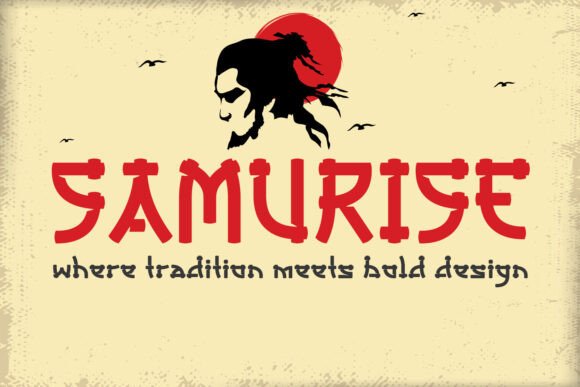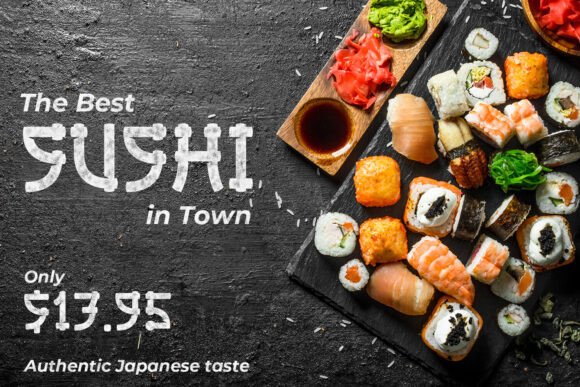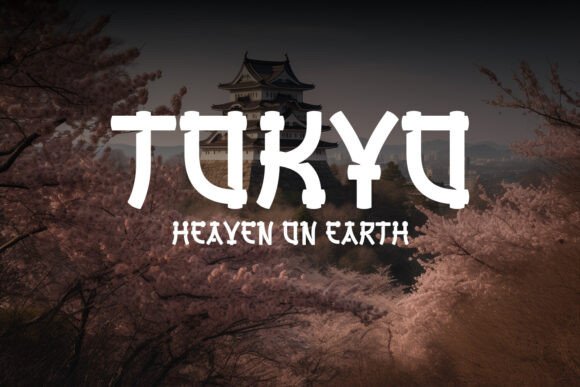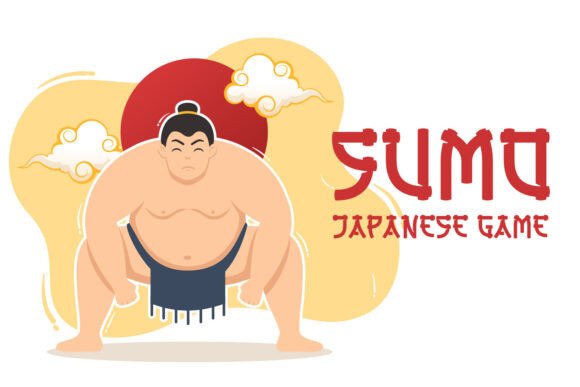
Samurise Font: Bold Japanese Stencil Font for Creative Branding & Posters
About the Samurise Font
Get ready to be inspired by Samurise Font, a fresh and dynamic typeface for modern creators. Samurise is a bold and dynamic Japanese-inspired stencil font that blends traditional samurai aesthetics with modern typography. Designed with sharp, structured strokes, this typeface evokes the power and precision of samurai calligraphy while maintaining a clean, stencil-like appearance. Perfect for Asian-themed designs, Japanese branding, martial arts posters, gaming titles, tattoo typography, restaurant menus, and cinematic projects, Samurise delivers an authentic yet contemporary feel.
This font is ideal for logo design, merchandise, packaging, social media graphics, book covers, and apparel branding. With a unique fusion of warrior-inspired lettering and stencil craftsmanship, Samurise stands out in gaming, anime, cyberpunk, and streetwear designs.
Samurise Font Usage Examples
Samurise Font Example